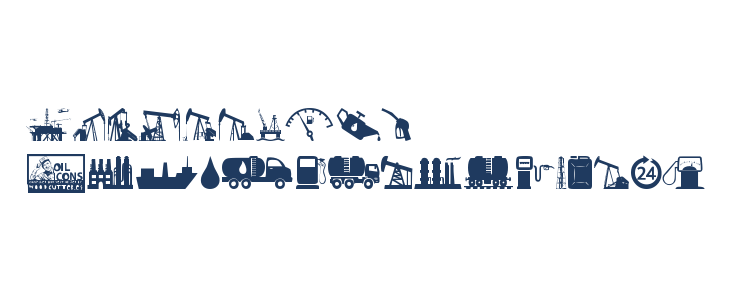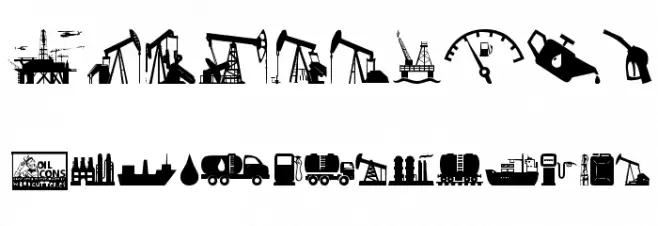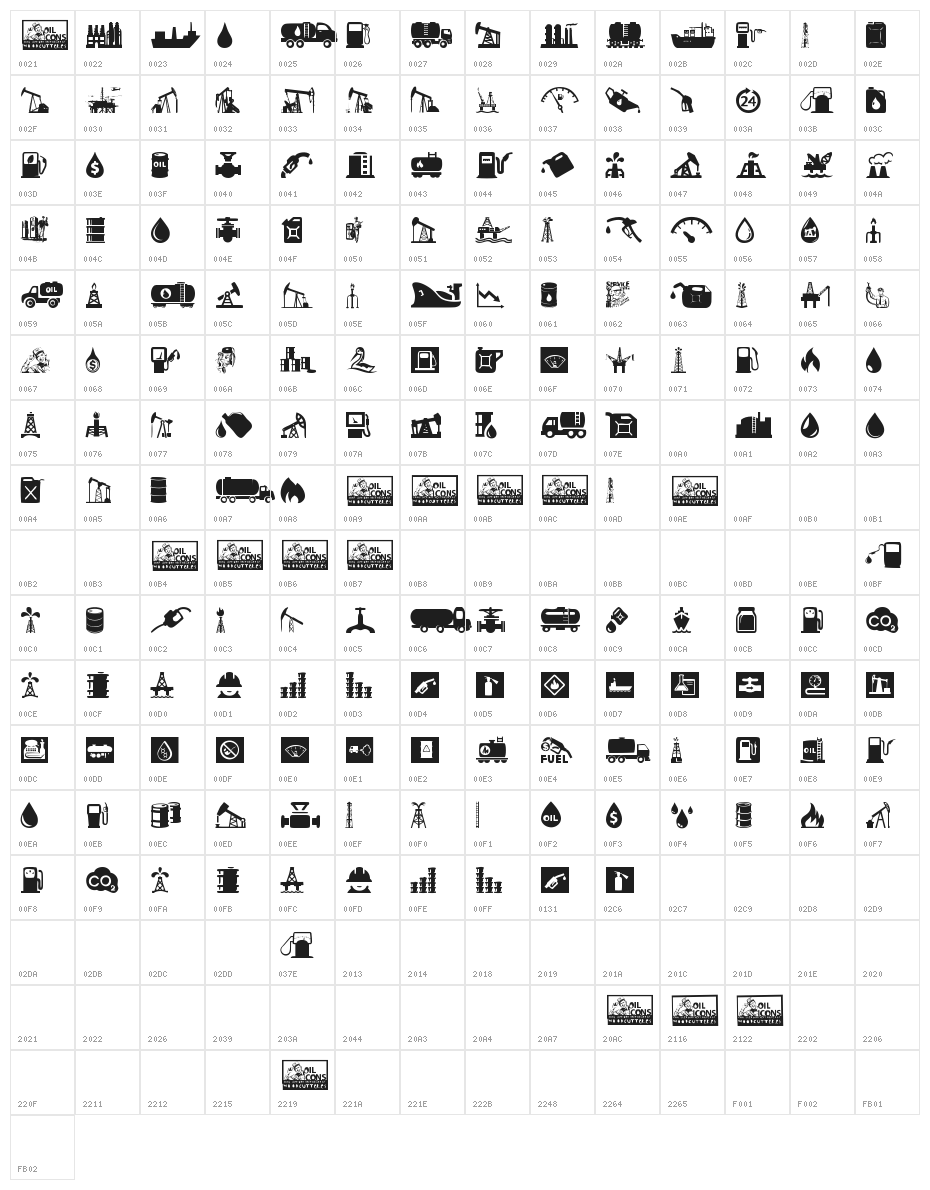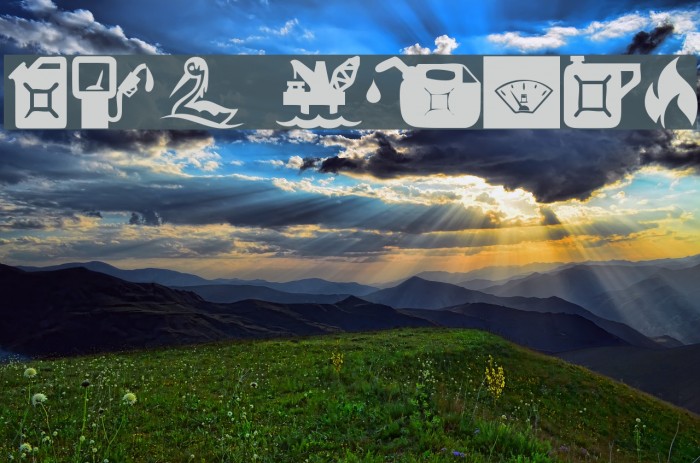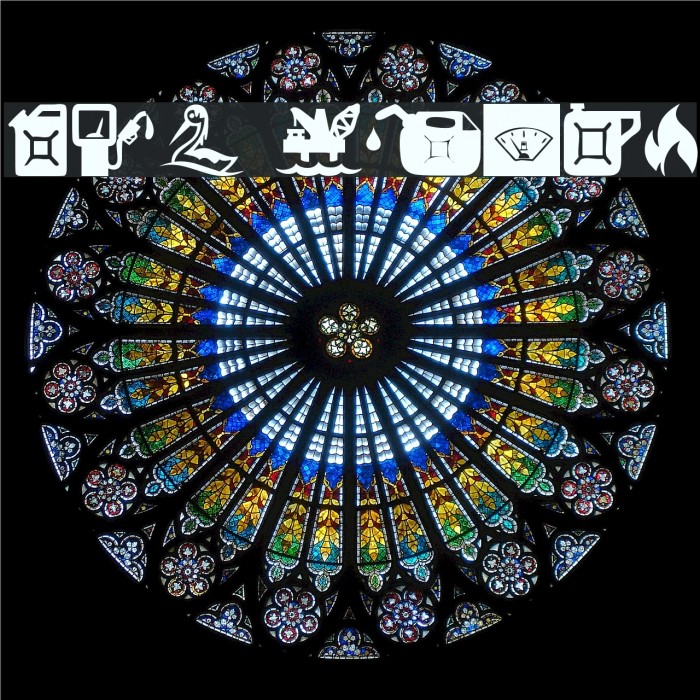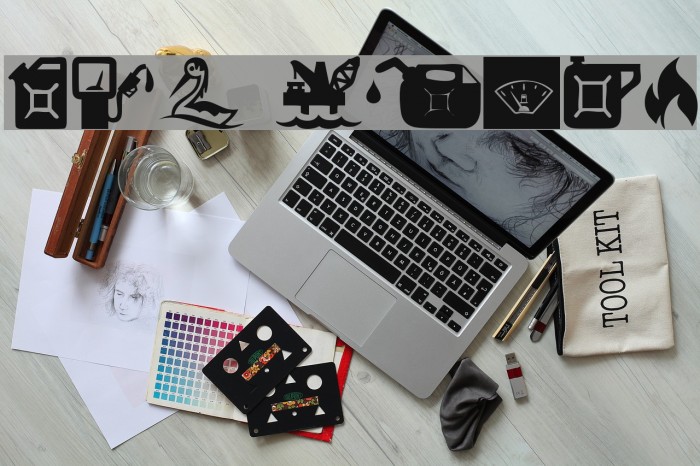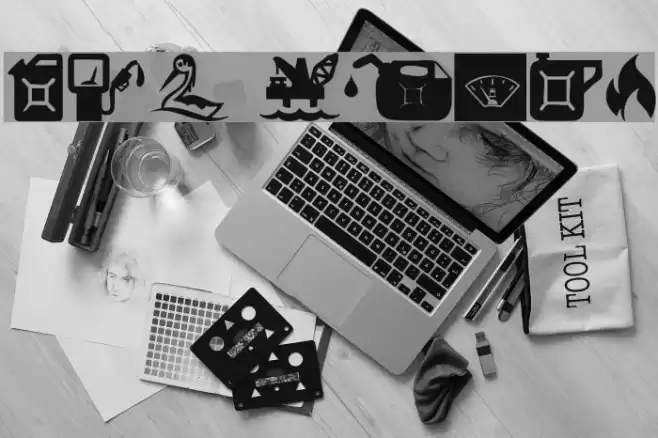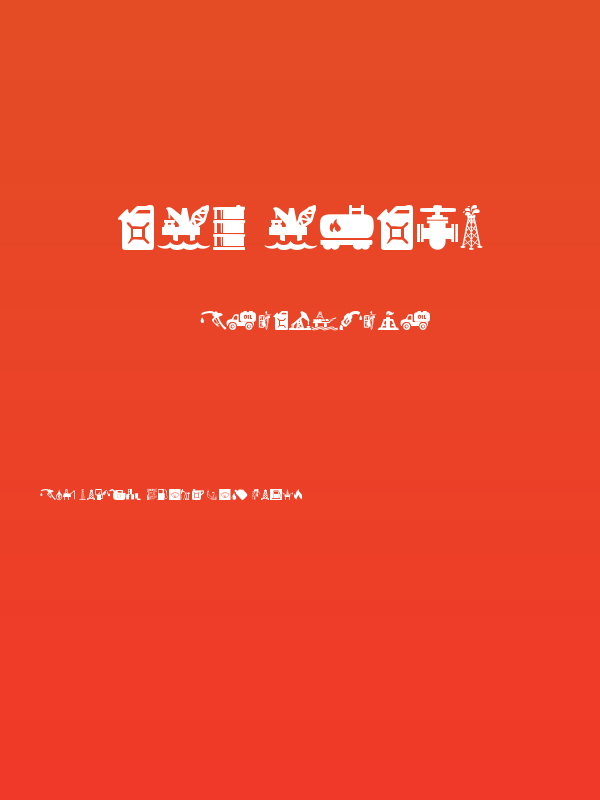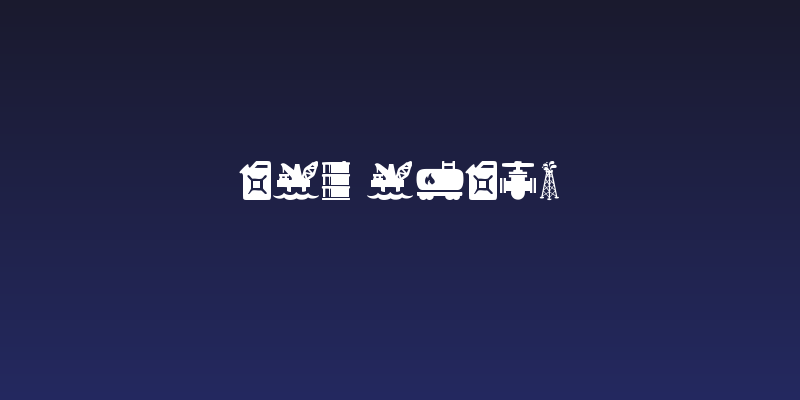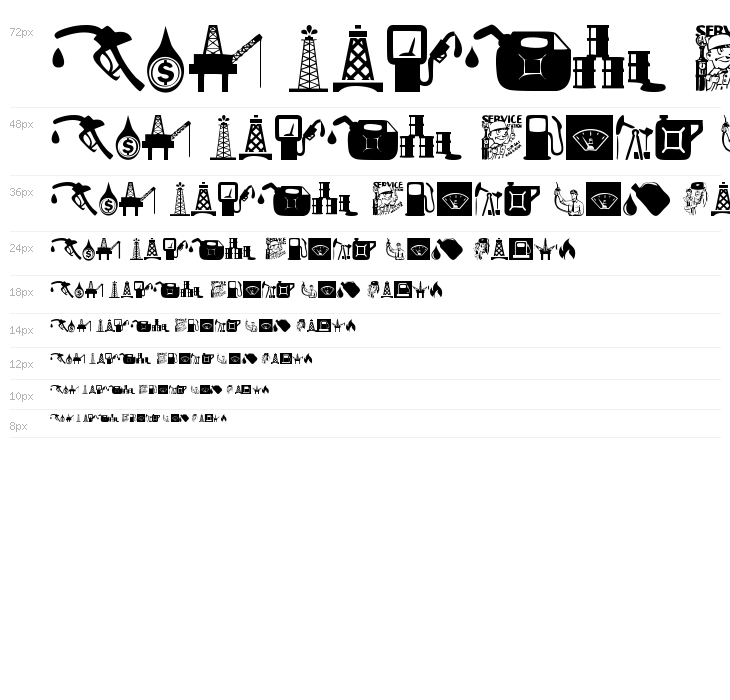
Oil Icons Font
Oil Icons Description
A collection of bold, high-contrast pictogram icons themed around oil, fuel, and industrial equipment. The icons are solid black silhouettes, featuring oil rigs, pumps, barrels, trucks, drops, and related industrial imagery, with consistent line thickness and minimal detail for clarity.
Overall StyleDecorative, Industrial, Modern
Use CaseIcons, Logos, Signage, Infographics
Proposed ProjectsInfographics, signage, educational materials, industrial presentations, app icons, technical manuals.